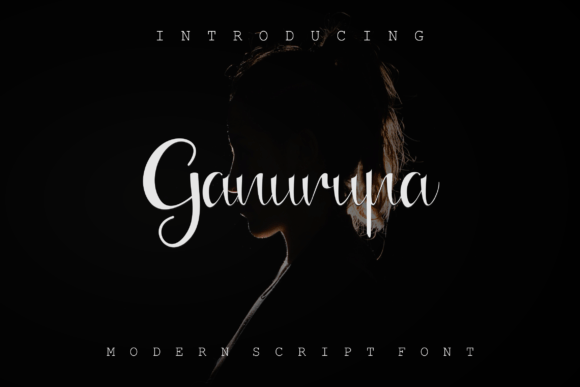
Introduction to Ganurupa Font
Ganurupa is an elegant and authentic script font.
The font is suitable for any branding project like logo, t-shirt printing, export, and many more It looks outstanding in a wide range of contexts.